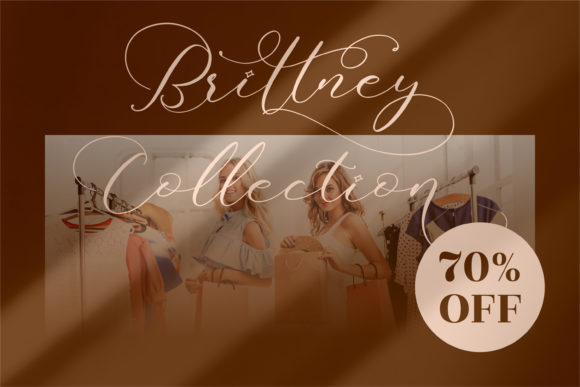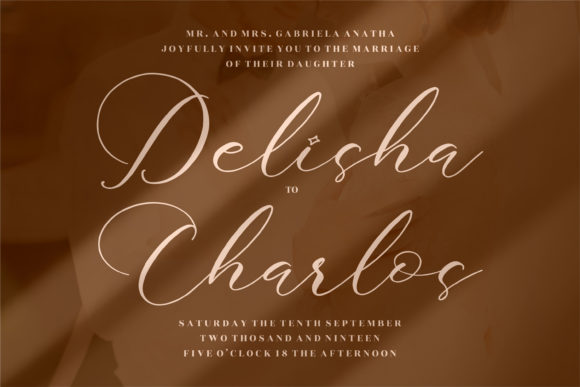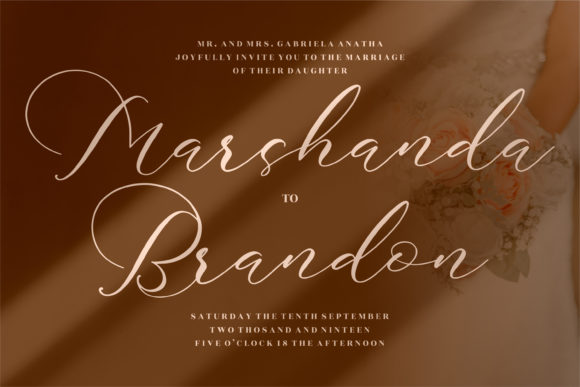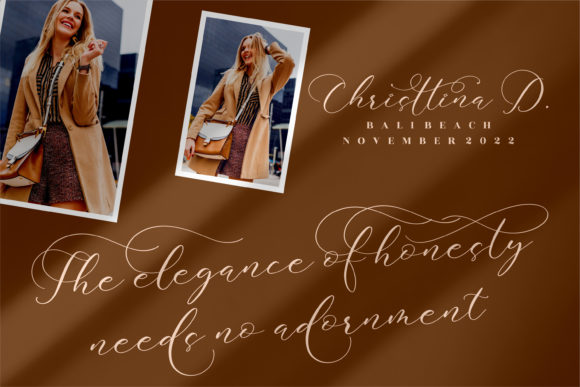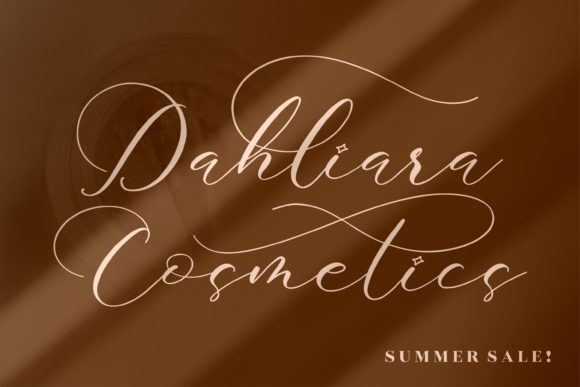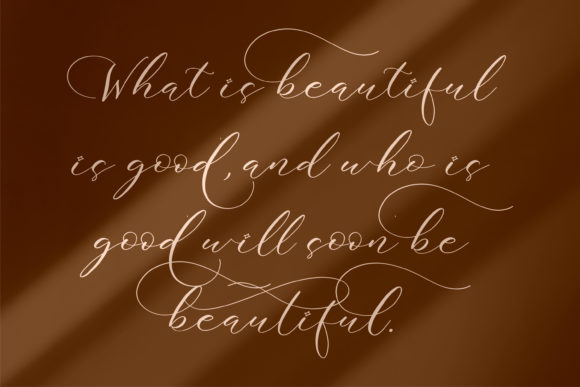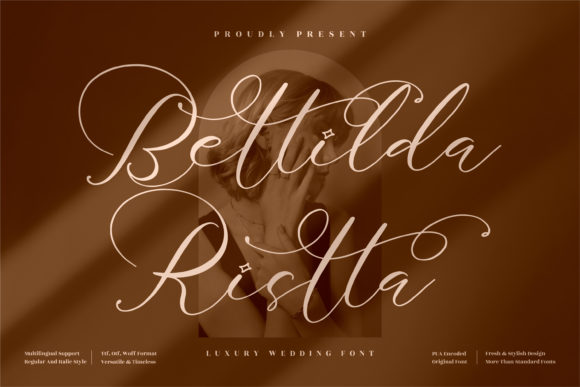
Bettilda Ristta Font: Elevate Your Designs with Elegance and Class
In the world of typography, a well-chosen font can make all the difference in transforming a design from ordinary to extraordinary. For those seeking a touch of elegance and sophistication, the Bettilda Ristta font is an exceptional choice. This lovely and delicate script font is specifically crafted to infuse a beautiful and refreshing look into various designs, making it a perfect fit for creatives and designers alike.
The Essence of Bettilda Ristta
Bettilda Ristta is more than just a font; it’s a statement of style and refinement. Its elegant strokes and delicate curves are meticulously designed to add a touch of class to any project. Whether you’re working on a branding campaign, a wedding invitation, a fashion blog, or any other creative endeavor, Bettilda Ristta is poised to elevate your design to new heights.
One of the standout features of Bettilda Ristta is its PUA (Private Use Area) encoding. This means that users can easily access all the amazing glyphs and ligatures that the font has to offer. PUA encoding allows for straightforward access to the extended character set, making it simple to incorporate the font’s beautiful swashes, alternates, and other special characters into your designs. This feature is especially beneficial for designers who want to add a personal touch to their work without the hassle of complicated font management.
The versatility of Bettilda Ristta is another one of its key attractions. This font can be used across a wide range of design projects, including:
• Branding and Logotypes: The elegant and unique feel of Bettilda Ristta makes it perfect for creating memorable brand identities.
• Wedding and Event Invitations: Add a touch of sophistication and romance to your wedding invitations, save-the-dates, and other event materials.
• Fashion and Beauty: Bettilda Ristta’s stylish and refined look is well-suited for fashion blogs, magazines, and beauty product branding.
• Packaging and Product Design: Elevate your product labels and packaging with a font that exudes quality and luxury.
Why Choose Bettilda Ristta?
With so many fonts available, why should Bettilda Ristta be your go-to choice? Here are a few compelling reasons:
• Elegance: Bettilda Ristta brings an unmatched level of elegance to any design.
• Readability: Despite its delicate nature, the font maintains excellent readability, making it suitable for both headings and body text.
• Uniqueness: Stand out from the crowd with a font that is both distinctive and stylish.
• Support: PUA encoding ensures that you have access to a wide range of glyphs and ligatures, providing ample creative freedom.
Bettilda Ristta is a beautiful and versatile script font designed to bring elegance and class to your designs. Its PUA encoding makes it easy to use and allows for a wide range of creative possibilities. Whether you’re a professional designer or a crafty DIY enthusiast, Bettilda Ristta is an excellent addition to your typographic arsenal. Elevate your projects with a font that is as refreshing as it is refined. Choose Bettilda Ristta for your next design venture and experience the difference it can make.